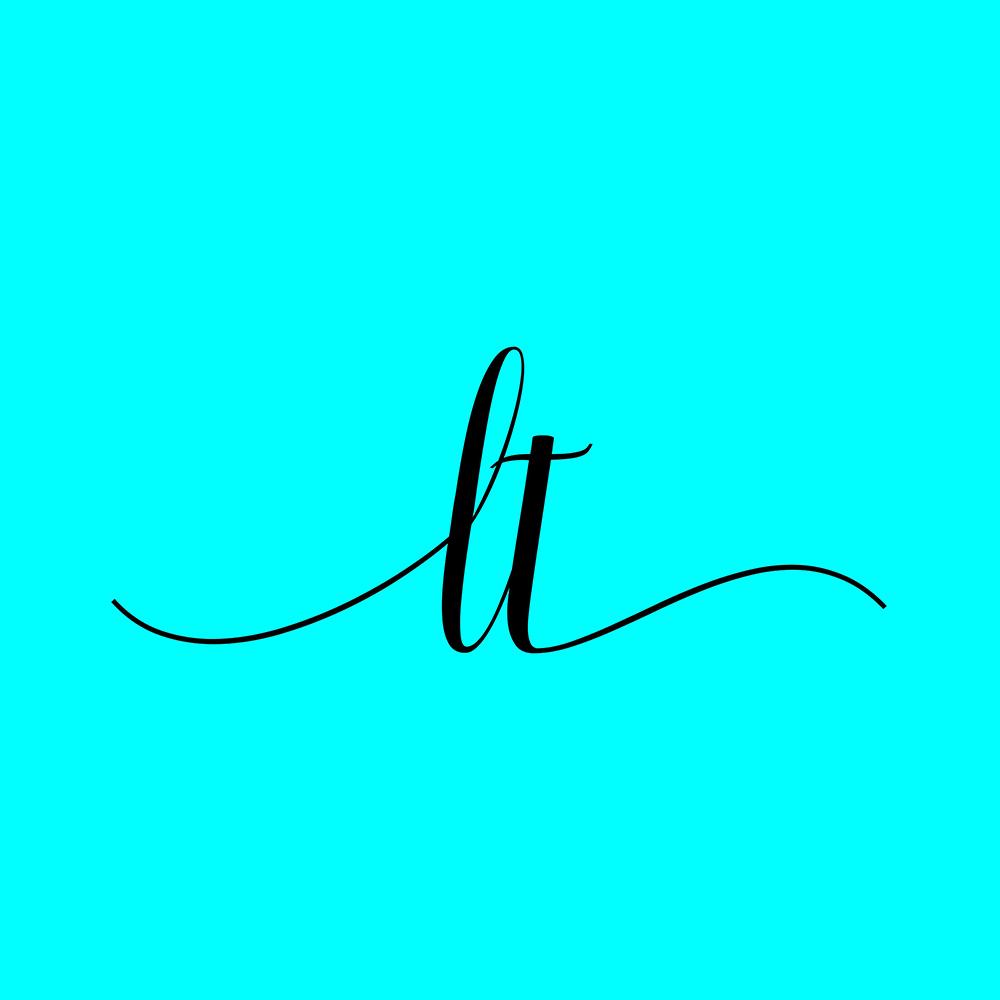
Bridgeston is a lovely script font featuring charming, playful characters that seem to dance along the baseline. This font is PUA encoded which means you can access all of the glyphs and swashes with ease!